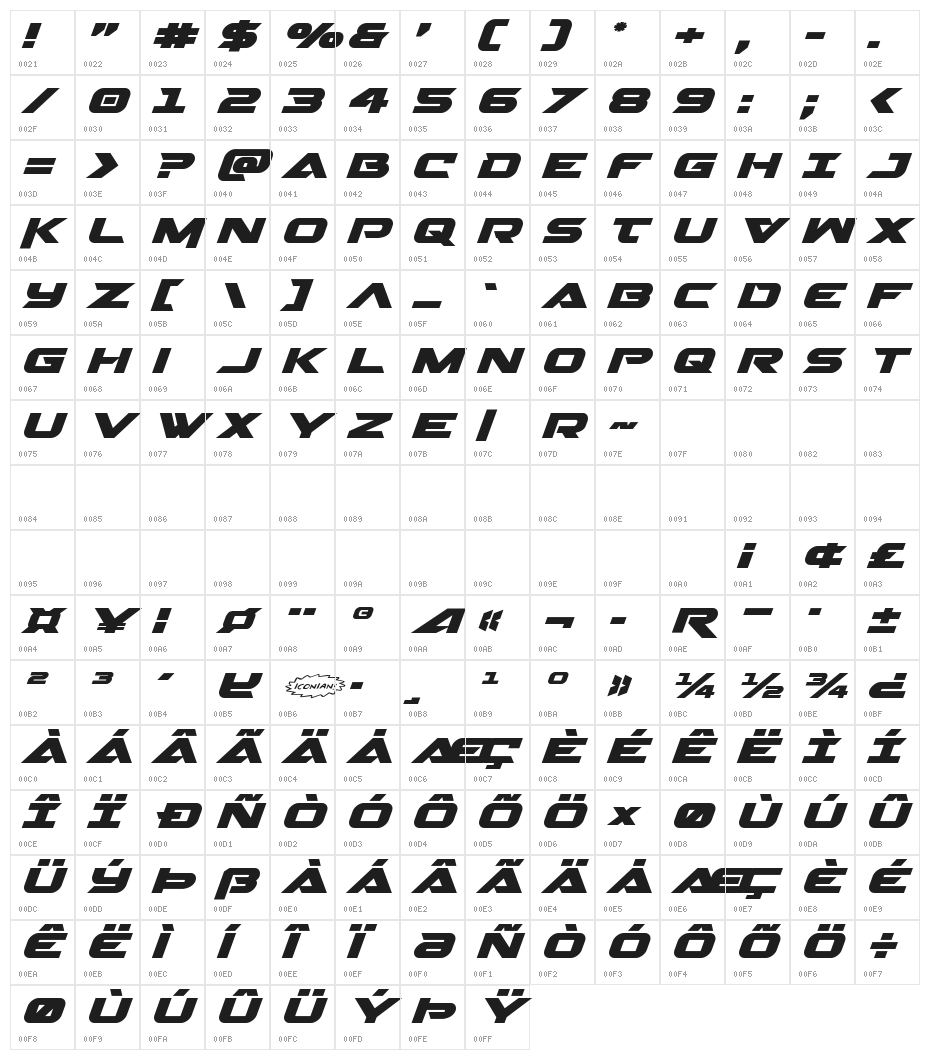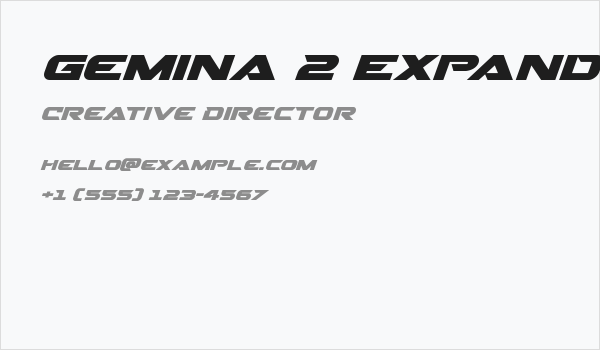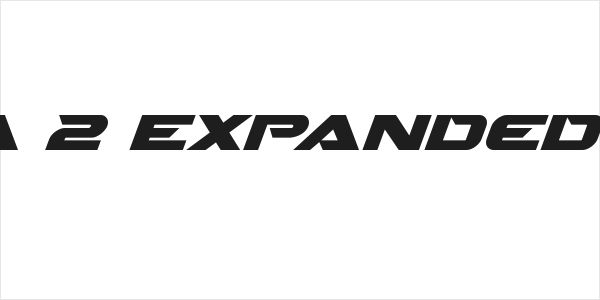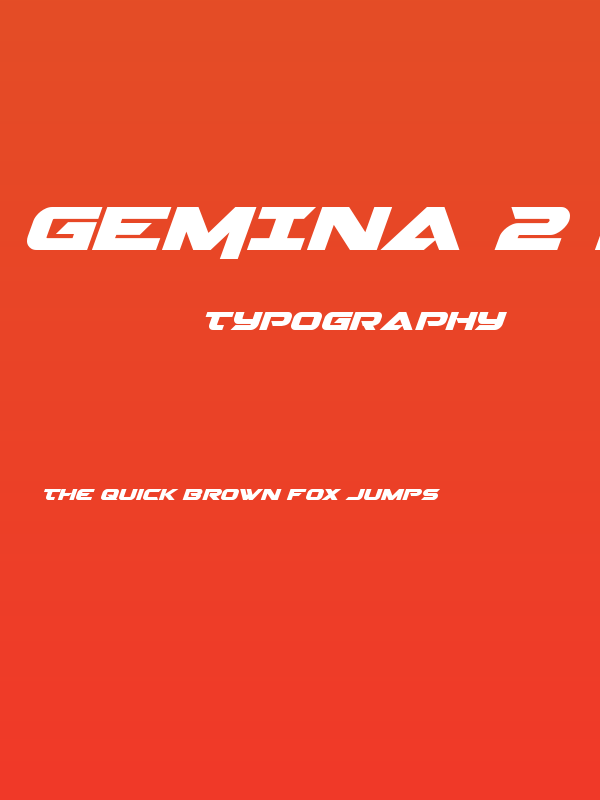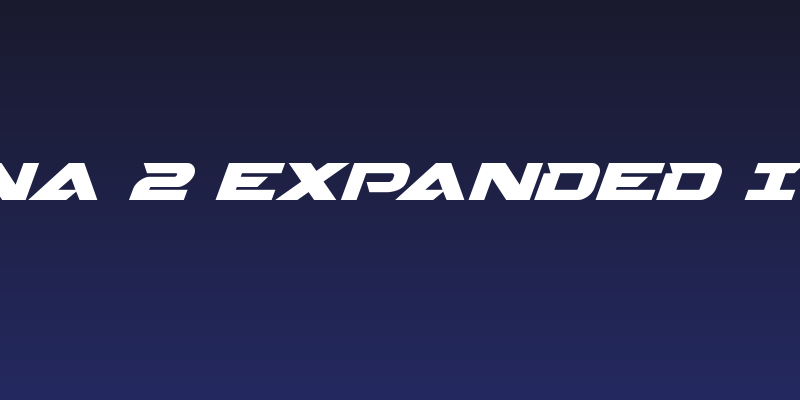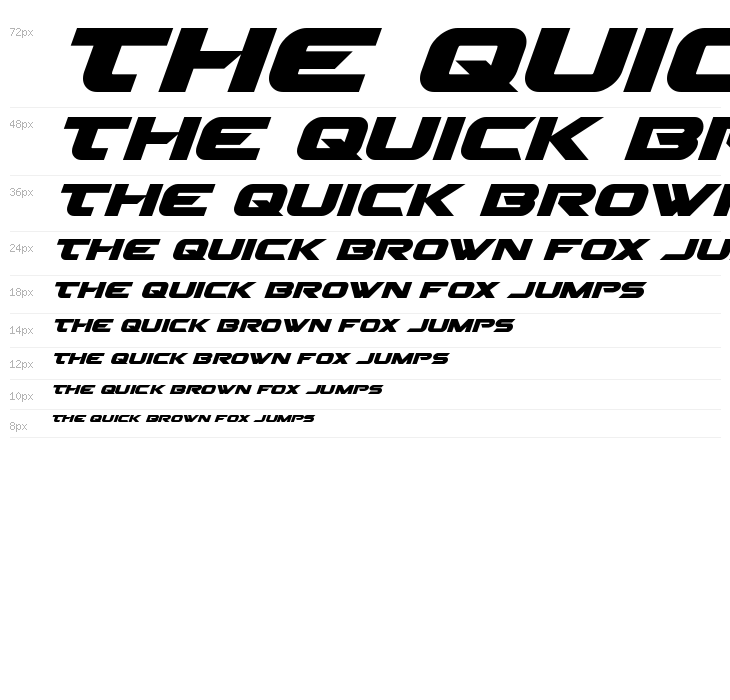
Gemina 2 Expanded Italic Font
Gemina 2 Expanded Italic Description
This font features a bold and dynamic design with an italicized slant, giving it a sense of motion and energy. The characters are expanded, providing a wide and impactful presence. The strokes are thick and consistent, contributing to a strong visual weight. The angular and geometric shapes of the letters add a modern and futuristic feel. This style is particularly effective for creating attention-grabbing headlines or logos that require a bold statement. The font maintains a uniform character spacing, ensuring readability while emphasizing its unique style.
| Proposed Projects | Ideal for sports branding, futuristic designs, dynamic posters, and impactful headlines. |